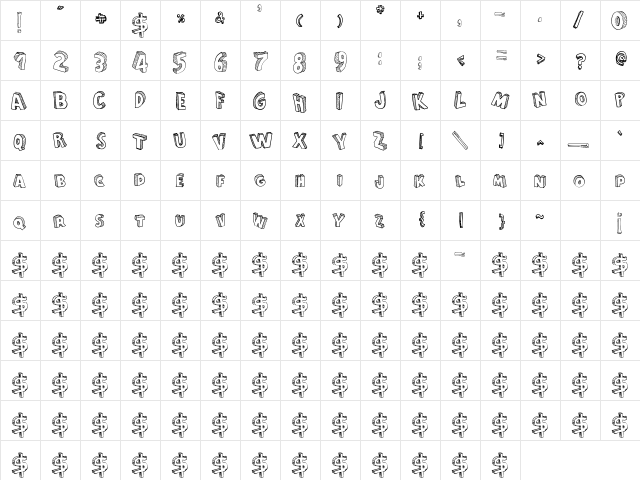
From Cartoon Blocks Regular
| Foundry | Galdino Otten |
| Designer | Galdino Otten |
Design Context for From Cartoon Blocks Typeface
From Cartoon Blocks trades formality for fun, with bouncy, characterful letterforms that bring warmth and energy to any project.
Font Pairing: Pairs well with a rounded or humanist sans for body copy, maintaining the friendly tone without relying on From Cartoon Blocks to carry extended reading.
Pro Tip: Use From Cartoon Blocks at larger display sizes where its expressive character can land. Pair with a clean, simple sans for body copy to maintain readability.